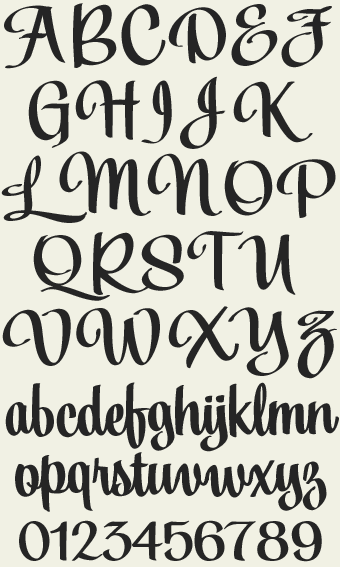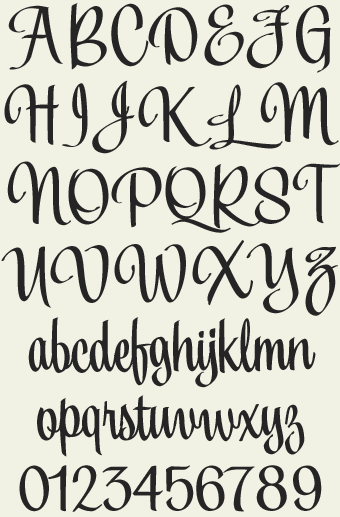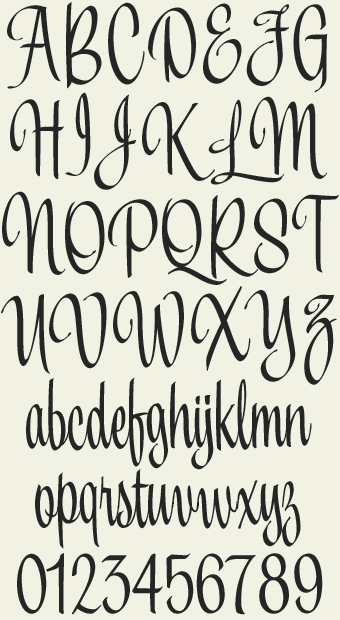
Retro period font set from sign artist Dave Parr. Includes 3 different versions with 15 bonus alternates on seldom used punctuation keys. No doubt you'll find lots of uses for these eye-catching scripts.